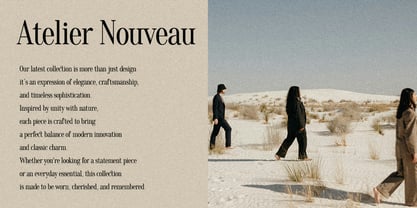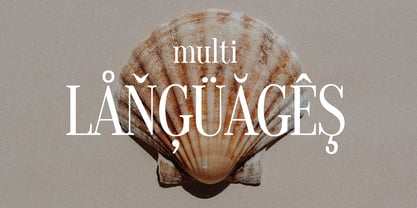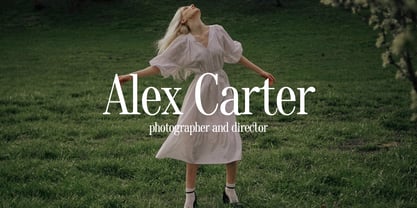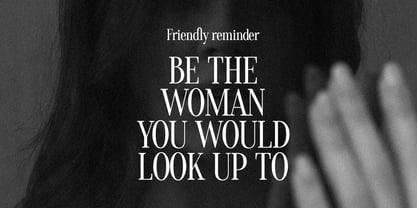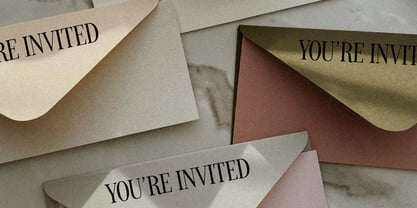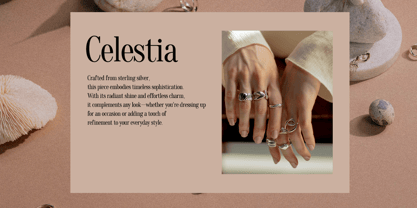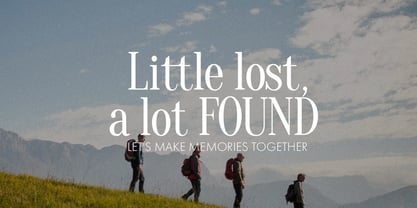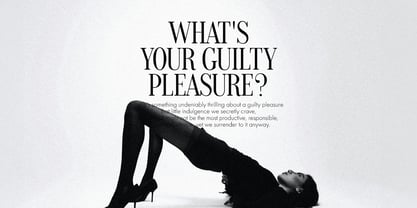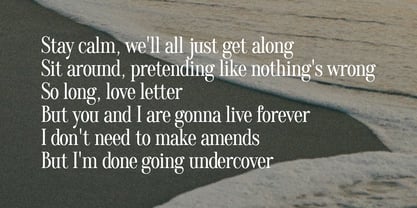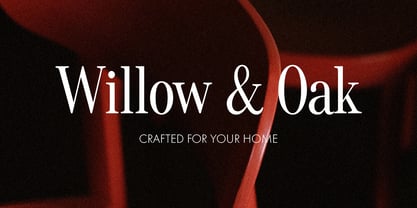
Nocturnal Sunset
The Nocturnal Sunset Font Family was designed by Daria Cherniackova and published by Bilberry Create. Nocturnal Sunset contains 1 styles. More about this family
Nocturnal Sunset - Modern serif font!
This font can be used to create anything as you wish, logos invitation cards, make scrapbooking, wedding cards, birthday cards, home decor, packaging holiday gifts, party decorations, print on fabrics and so much more.